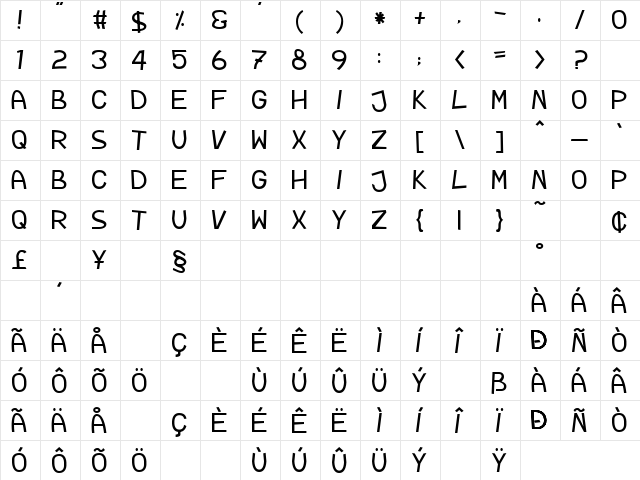
TPF Rubber Ducky Regular
Design Context for TPF Rubber Ducky Typeface
TPF Rubber Ducky is a composed and adaptable typeface that performs quietly and consistently across a wide range of design contexts.
Pro Tip: Use TPF Rubber Ducky in both headline and body roles to test its range before committing to a single application.